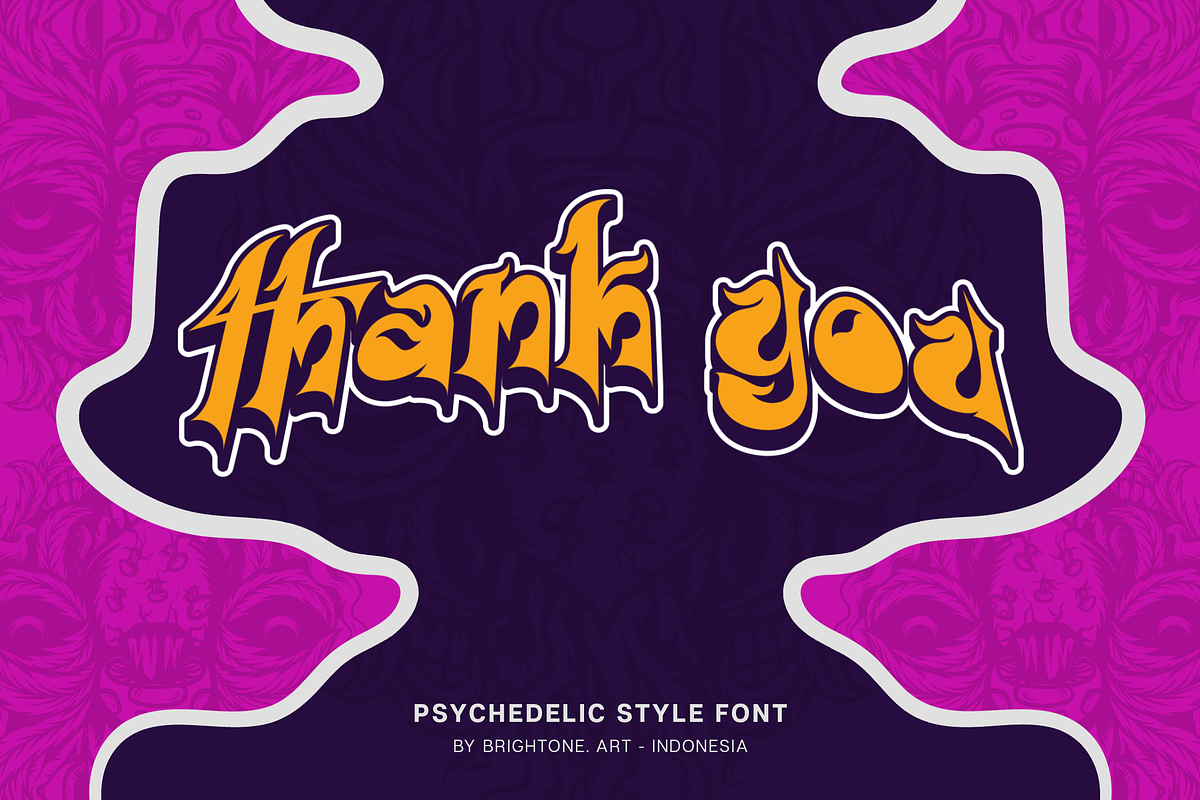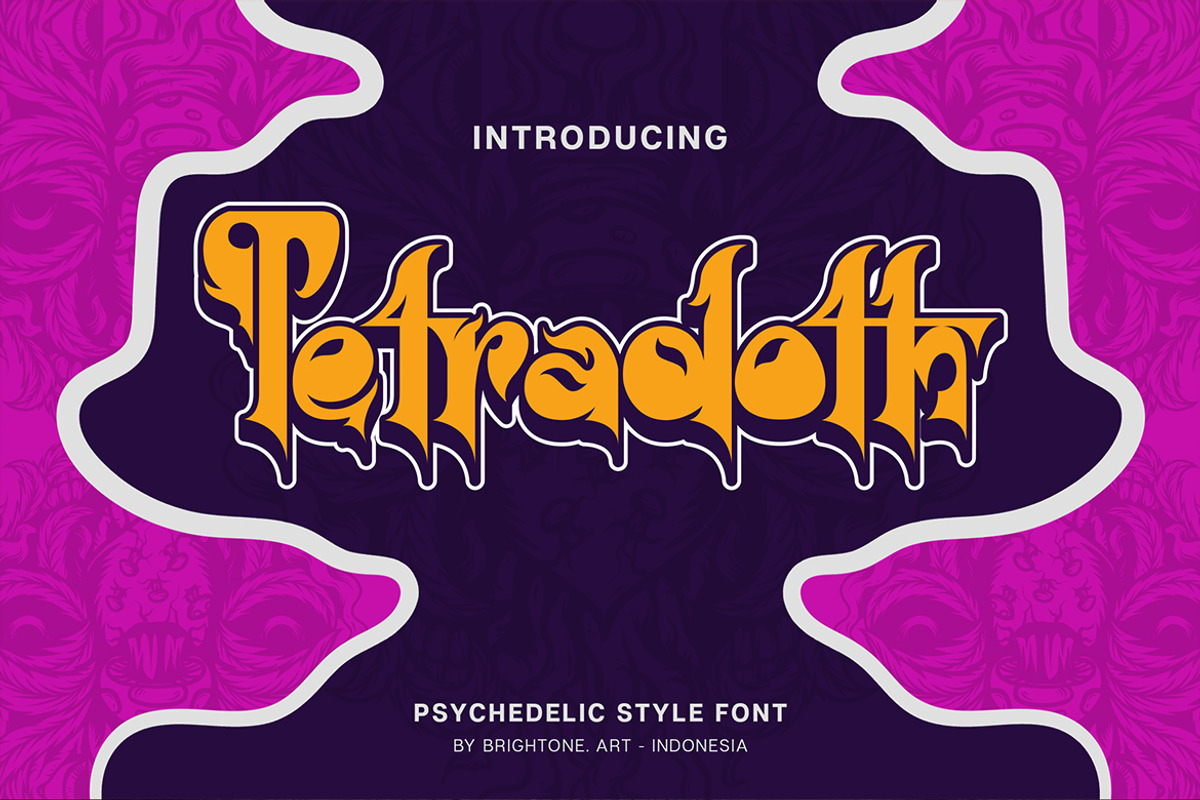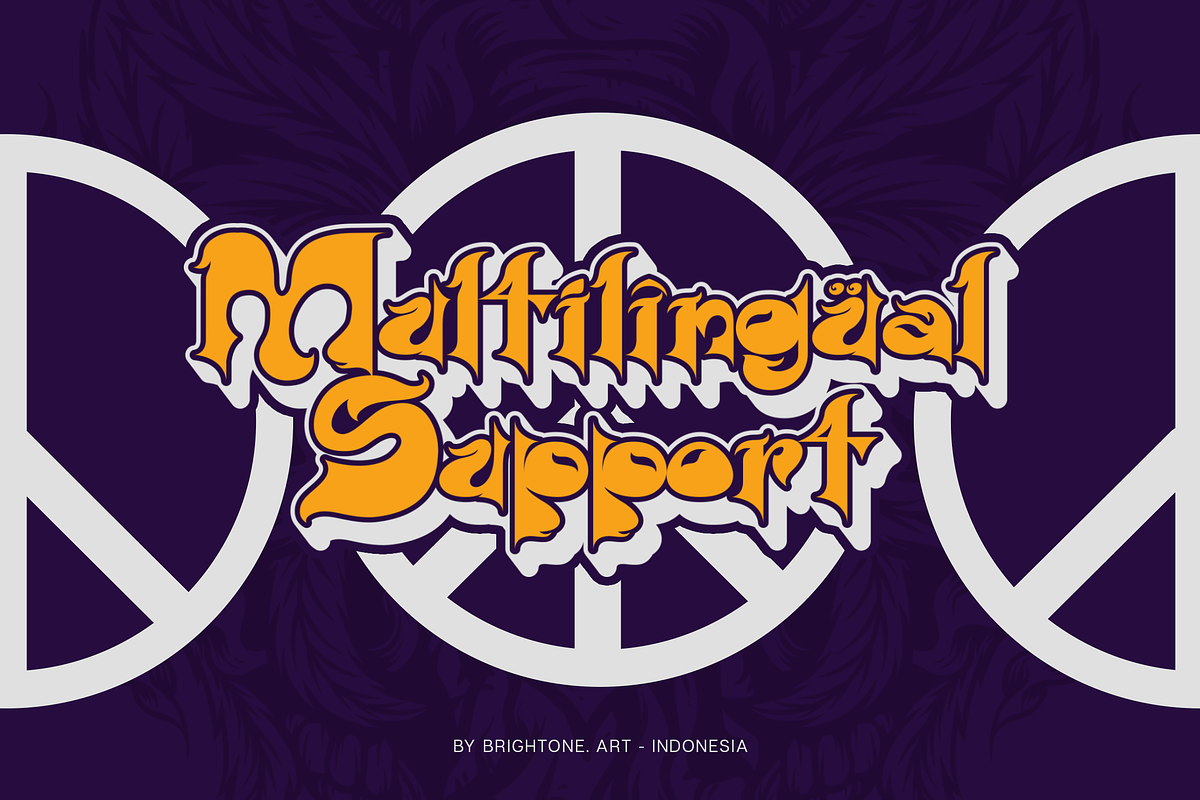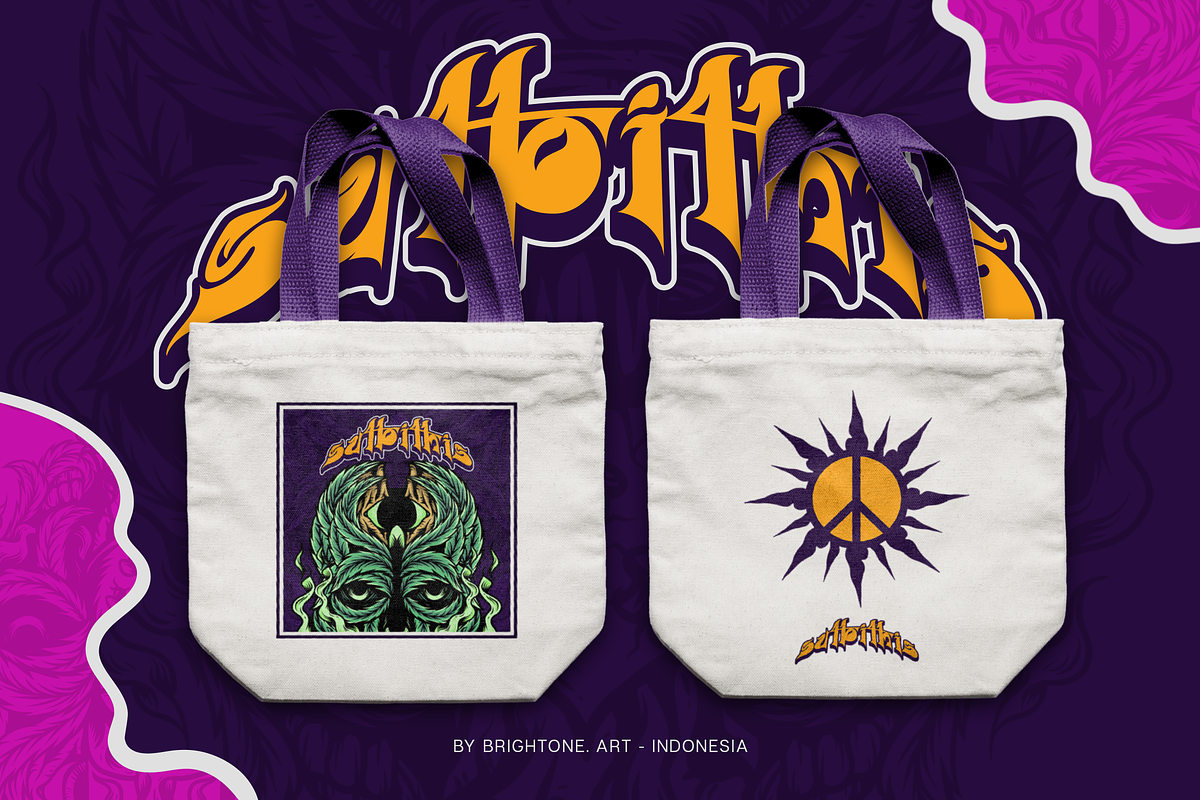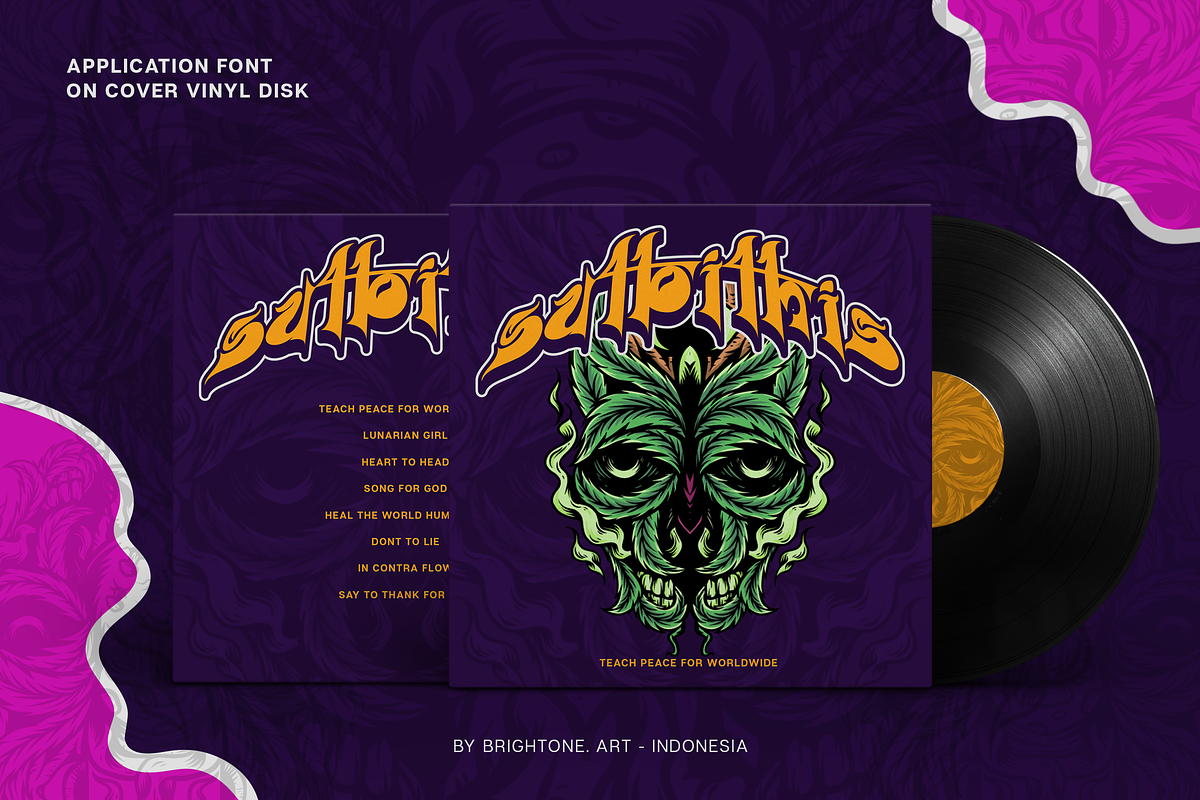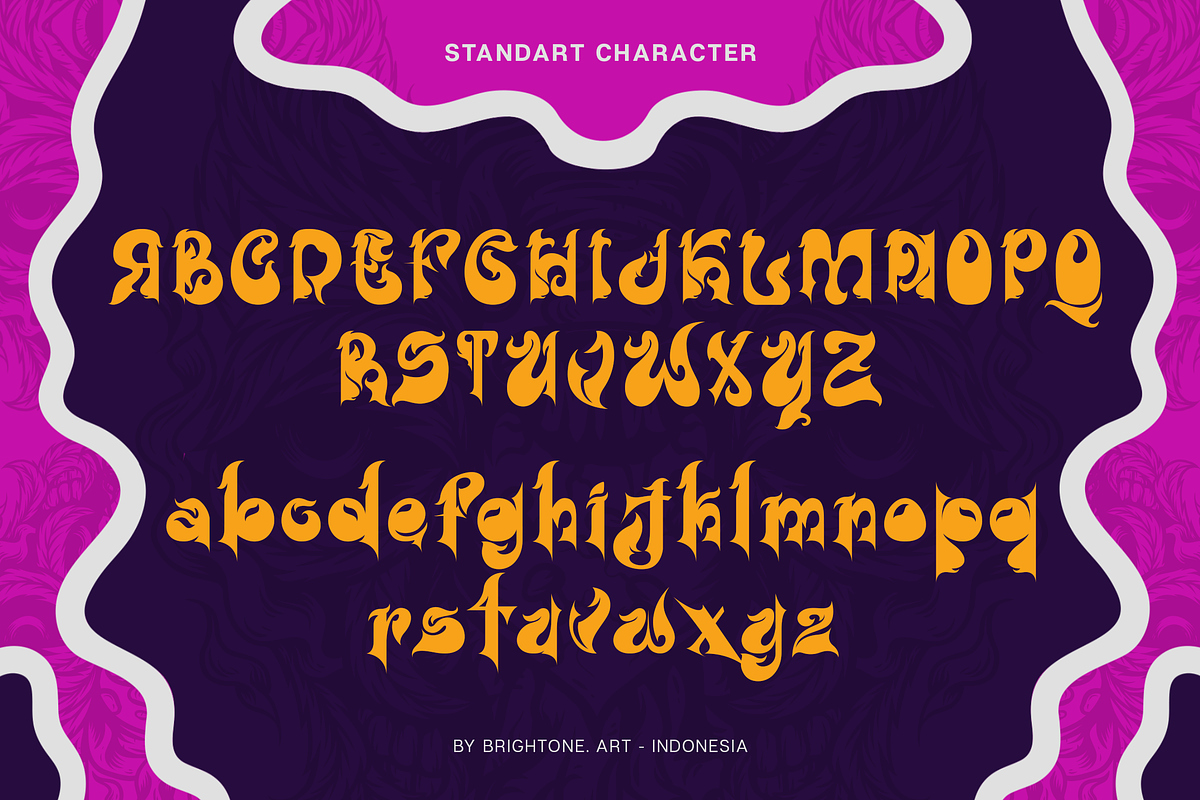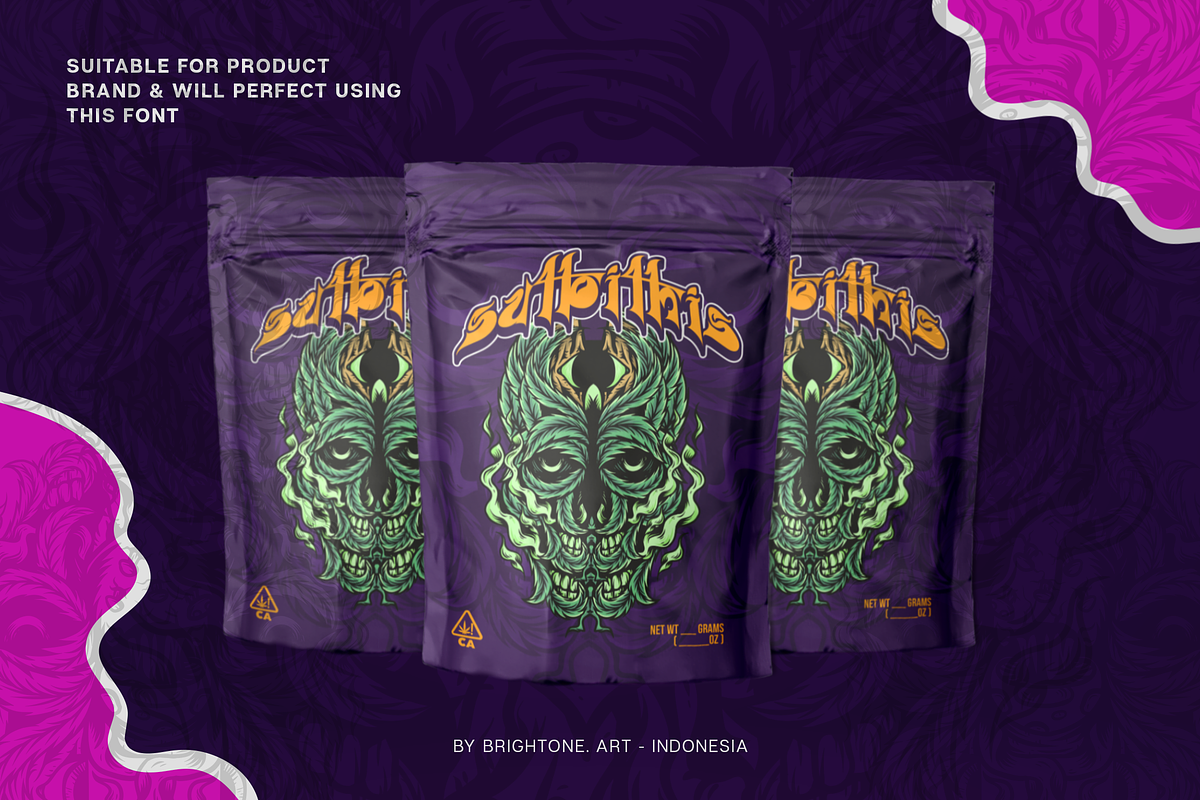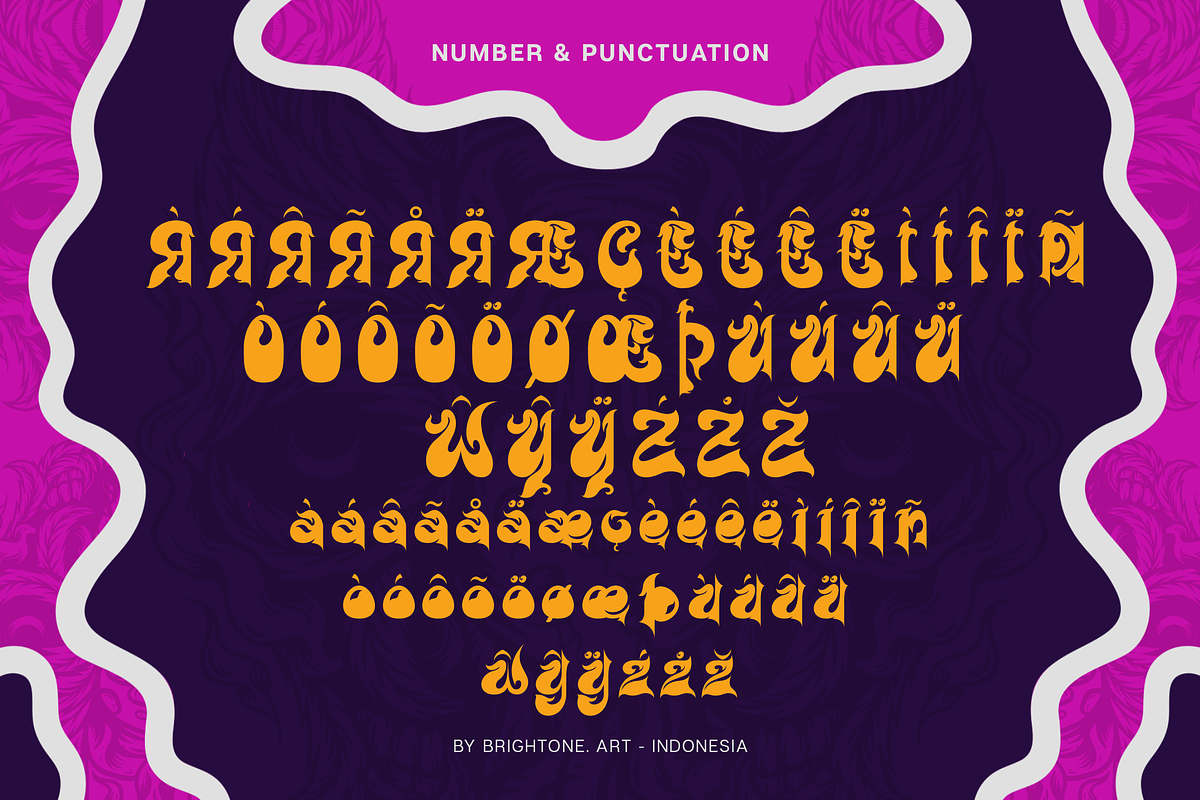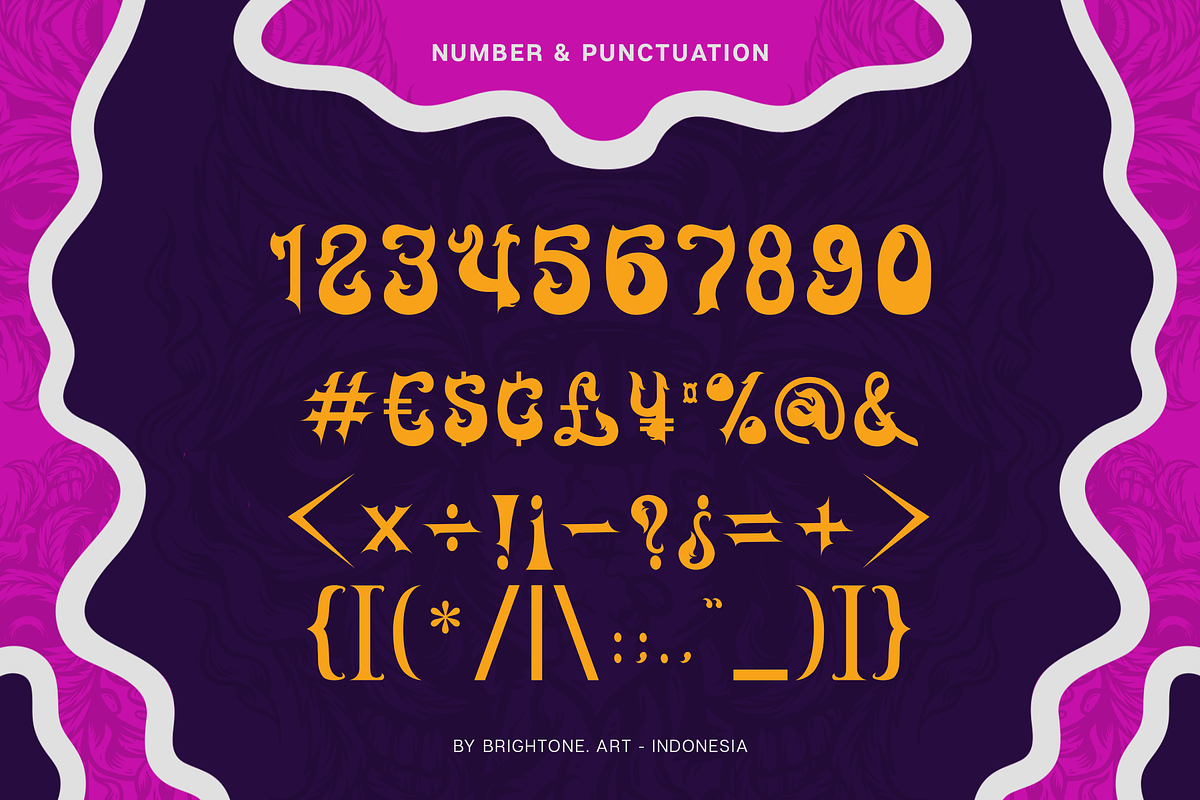
Tetradoth - Psychedelic Font
Tetradoth is Psychedelic font with good style includes uppercase letters, numerals, a large range of punctuation and multilingual support. Psychedelic style for your logo, posters, pouch bag design , label, sticker, branding for your brand and many more